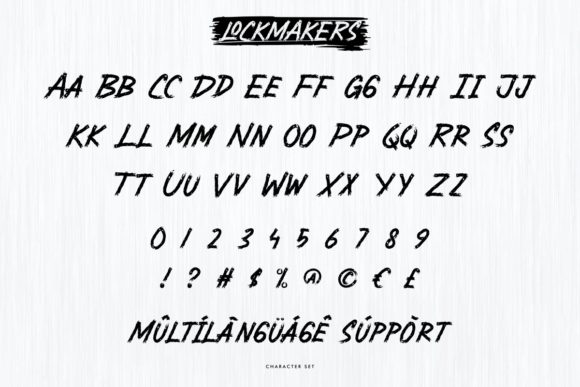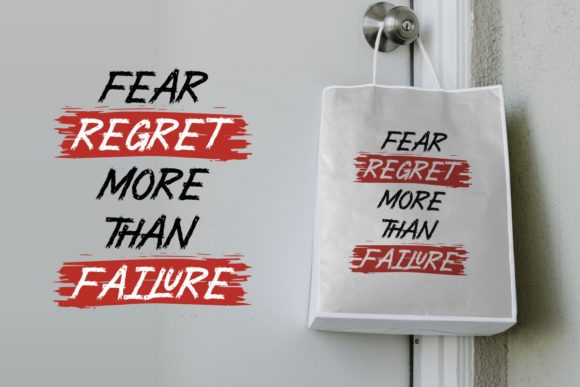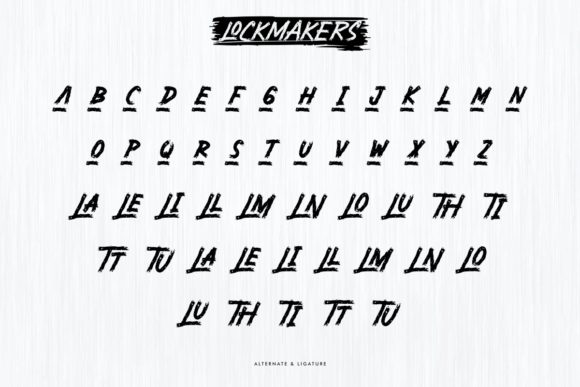
Introduction to Lockmakers Font
As a designer, have you ever been working on a creative project and suddenly, everything falls into place with the perfect font? For me, that moment was when I stumbled upon the Lockmakers Font. Its chunky, textured letters added a level of depth and character to my design that I had been missing.
The Lockmakers Font is a game-changer for designers looking to add some high-quality, unique flair to their work. With its transparent background and bold, brush-stroke letters, this font is the perfect design resource for anyone looking to make their projects stand out. And the best part? It’s available for free download, making it an invaluable asset for designers of all levels.
Whether you’re working on a graphic design project or a branding campaign, the Lockmakers Font is sure to bring a level of sophistication and creativity to your work. In this article, we’ll dive deeper into the world of this amazing font and explore its many uses and benefits.
Key Features of Lockmakers Font
- Professional-grade font with precise details and crisp lines
- Supports a wide range of languages and characters
- Perfect for designers seeking a unique and distinctive look for their designs
Honest Review: Lockmakers Font
I recently stumbled upon the Lockmakers Font and I must say, it’s been a game-changer for my design projects. This font is a design resource that’s definitely worth exploring.
- ✨ The high-quality design makes it perfect for creative projects that require a unique touch.
- ✨ The transparent background makes it easy to use in a variety of designs.
- ⚠️ Limited character set – it’s only available in uppercase and doesn’t have a full range of characters.
- ⚠️ Not suitable for body text – due to its unique design, it’s better suited for headings and titles.
Overall, I’m really impressed with the Lockmakers Font. It’s a high-quality design resource that’s perfect for creative projects. While it has some limitations, it’s definitely worth using in your designs. The transparent background and free download make it a great addition to any design arsenal.
Lockmakers Font
Tips for Getting the Most Out of Lockmakers Font
For optimal results, use Lockmakers Font in conjunction with other high-quality design resources. Experiment with layer styles, blending modes, and text effects to create visually stunning graphics. Don’t be afraid to push the font’s limits and try new things.
Lockmakers Font is ideal for creative projects, such as branding materials, infographics, and posters. Its high-quality features make it perfect for designers seeking a unique and professional look. Use it to add a touch of elegance to your designs and stand out from the crowd.
Alternatives to Lockmakers Font
Compared to Lockmakers Font, Montserrat is more modern and geometric. It’s a free download and available in multiple weights, making it a great alternative for designers seeking a high-quality sans-serif font for their creative project.
Q: Can I use the Lockmakers Font on a transparent background, and will it look good?
Yes, the Lockmakers Font can be used on a transparent background, making it ideal for projects that require a subtle, non-distracting design. Since it’s a high-quality font, it will look great on a transparent background, adding a touch of sophistication to your design project.